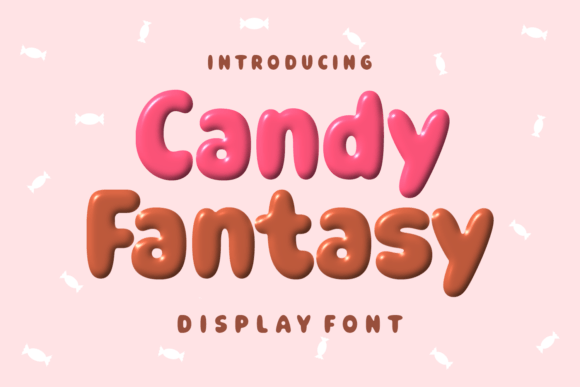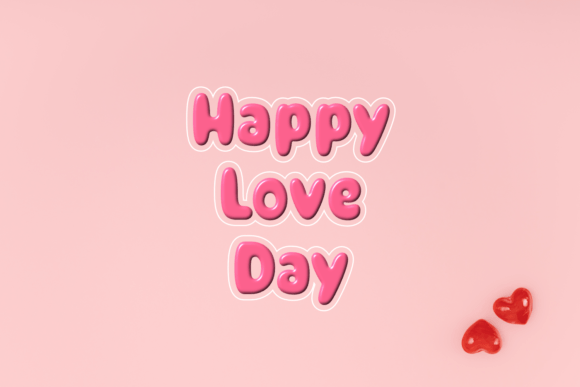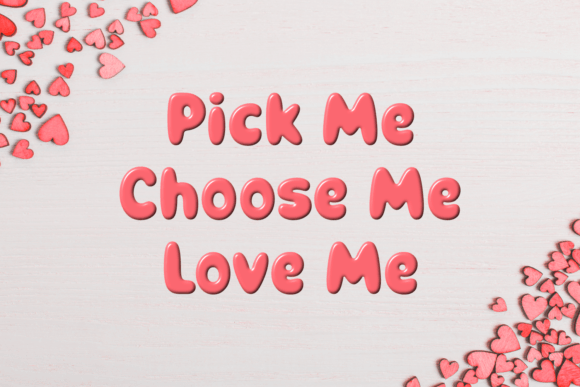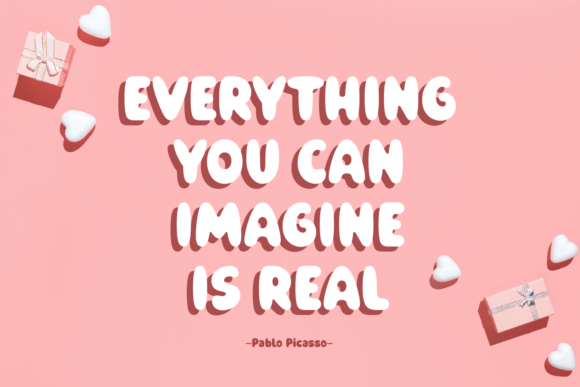
Candy Fantasy Font: A Sweet & Playful Display Font for Cricut
About the Candy Fantasy Font
Add a touch of class to your work with the Candy Fantasy Font, a truly exceptional typeface. Candy Fantasy is a delightful and adorable display font that adds a sweet touch to any project. With its playful design and charming details, this font is perfect for creating eye-catching headlines, invitations, and creative designs. Embrace a world of whimsy and charm with Candy Fantasy, making your text as delightful as a sugary treat. Perfect for adding a sprinkle of cuteness to your projects!
Candy Fantasy’s playful energy makes it ideal for projects requiring a whimsical, childlike aesthetic. It excels in headlines, logos for confectionery brands, children’s book titles, and short, impactful marketing materials. Avoid using it for body text or lengthy paragraphs; its decorative nature reduces readability at smaller sizes.
The font’s inherent sweetness pairs well with clean sans-serif fonts like Open Sans for a balanced contrast, or a more sophisticated serif like Playfair Display for a touch of classic elegance. For a bolder look, consider pairing it with a geometric sans-serif.
Candy Fantasy’s overall personality is best described as friendly and cheerful, yet sophisticated enough for branding that aims for a playful yet upscale appeal. Avoid using it for projects requiring a serious or corporate tone.